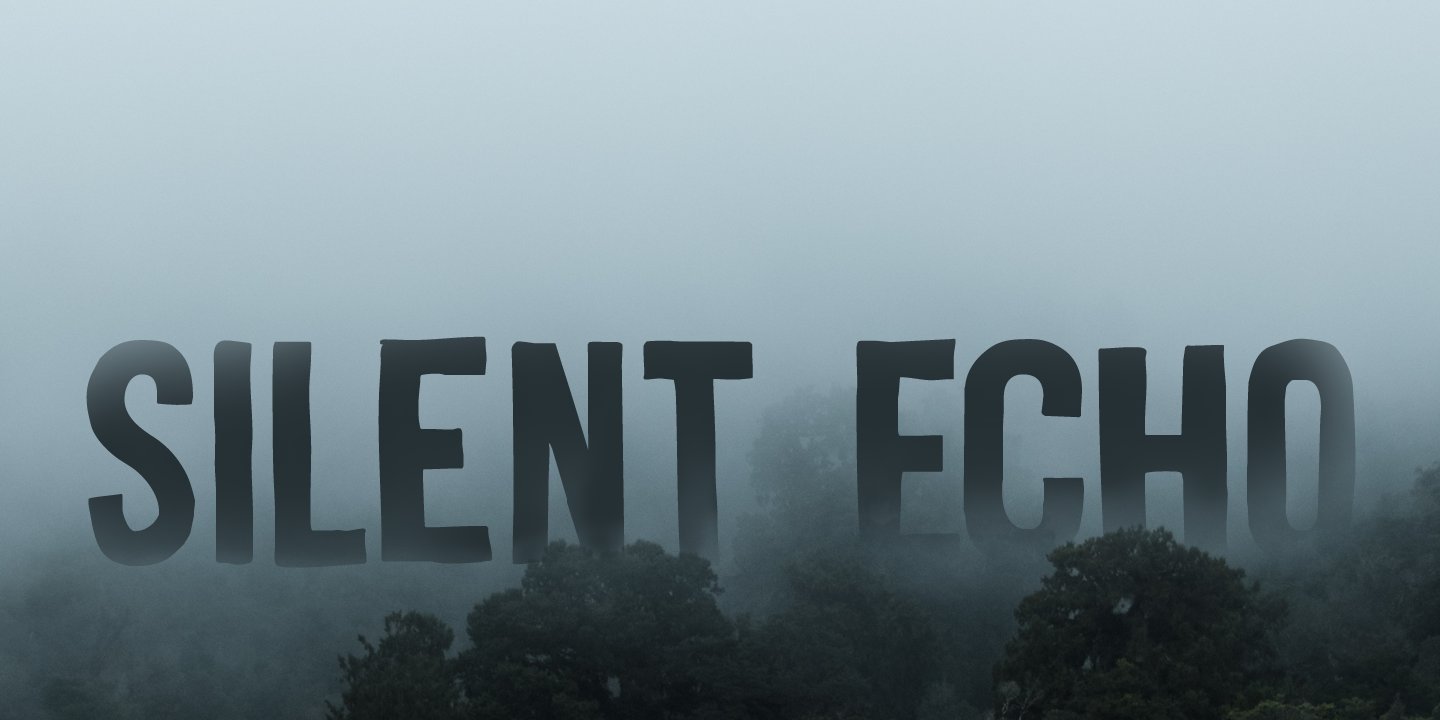
This atmospheric display font is perfect for meditation center branding, mindfulness app interfaces, spiritual retreat marketing, ambient music album covers, contemplative space signage, wellness sanctuary promotions, quiet reflection campaigns, and serene design projects that celebrate inner peace and thoughtful silence.
Silent Echo Font is exciting because it embodies tranquil resonance with its subtle letterforms that whisper like gentle echoes in sacred spaces. The font delivers peaceful sophistication while maintaining contemplative readability that creates calm atmosphere and encourages mindful reflection.
The Silent Echo Font family includes regular and light versions with meditation-themed decorative elements, zen symbols, and peaceful ornaments, providing designers with comprehensive tools for creating resonant typography that echoes with tranquility.
Ready to embrace peaceful resonance? Silent Echo Font Free Download offers designers whispered letterforms that resonate with meditative elegance and spiritual tranquility. This contemplative typeface combines silence aesthetics with professional functionality, making it ideal for meditation centers, wellness brands, and mindfulness campaigns. Whether you're designing meditation app interfaces, spiritual retreat brochures, or contemplative space materials, this font delivers peaceful appeal. The thoughtfully crafted characters feature gentle presence while maintaining excellent readability across wellness applications. Perfect for businesses in meditation services, spiritual wellness, mindfulness coaching, and contemplative practices that celebrate inner peace and quiet reflection. The font's silent construction creates memorable brand recognition that resonates with peace seekers worldwide. Each letter showcases deliberate calm that mirrors the profound depth of silent meditation. Download today and cultivate inner stillness in your creative projects with this premium display font that transforms ordinary text into extraordinary expressions of peaceful beauty and the resonant silence of Silent Echo Font Free Download tranquility.